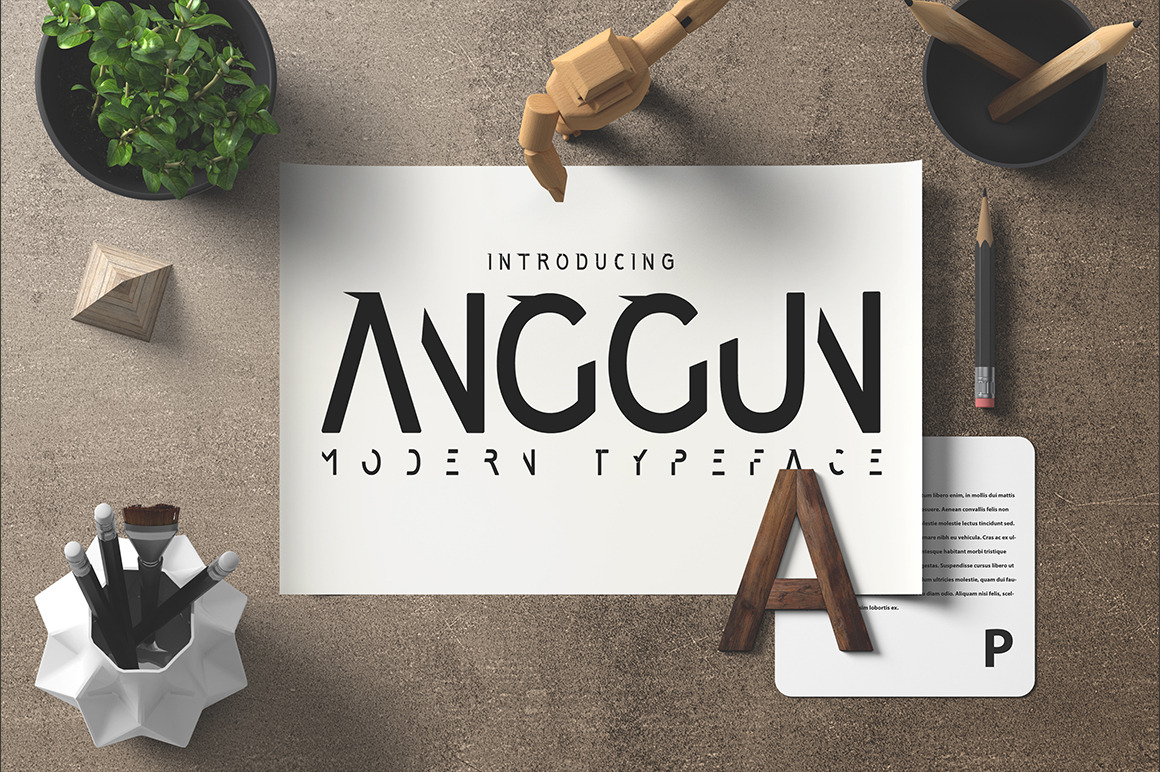
Anggun Font
Hello I'm really excited to introduce Anggun is a future style typeface font clean and elegant with 2 style. suitable to create any branding, product packaging, invitation, qoutes, t-shirt, label poster etc.